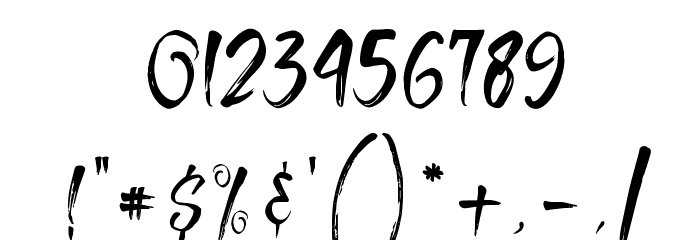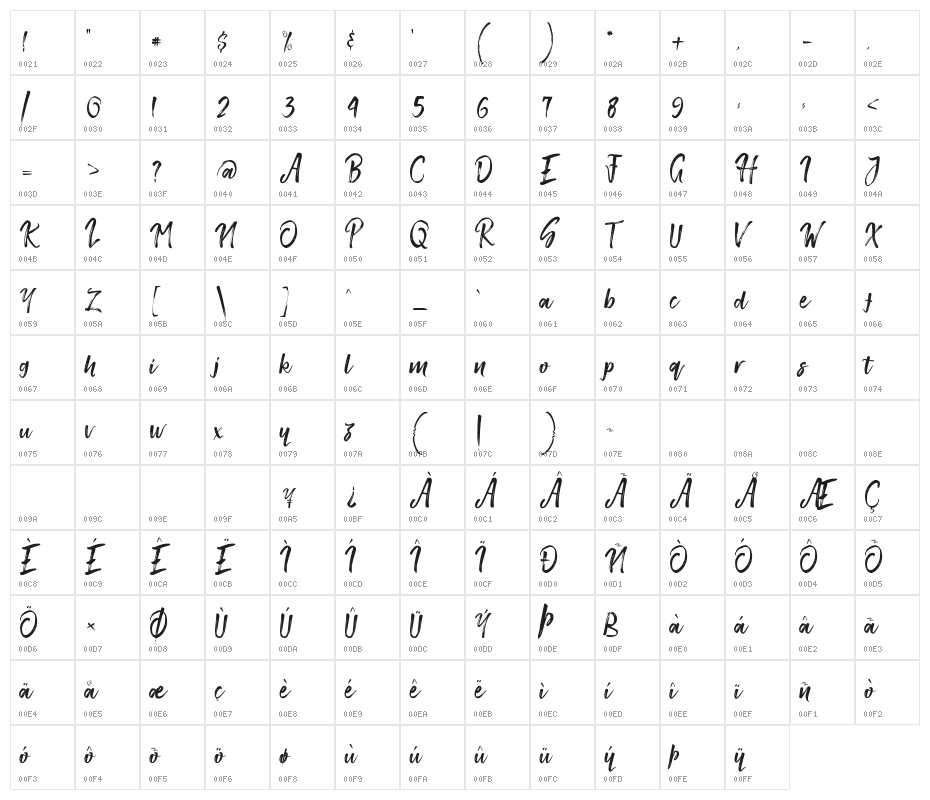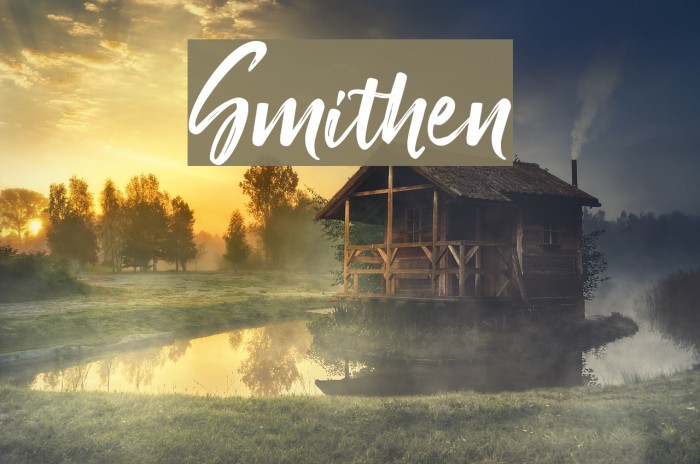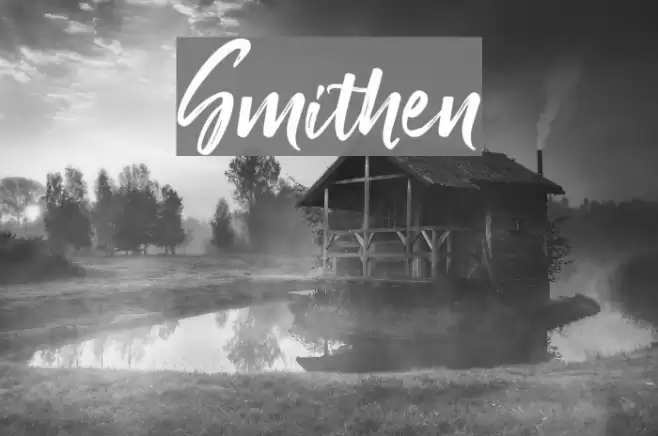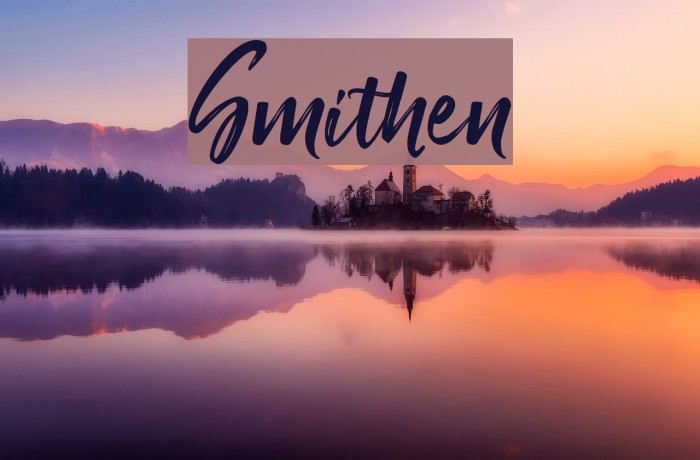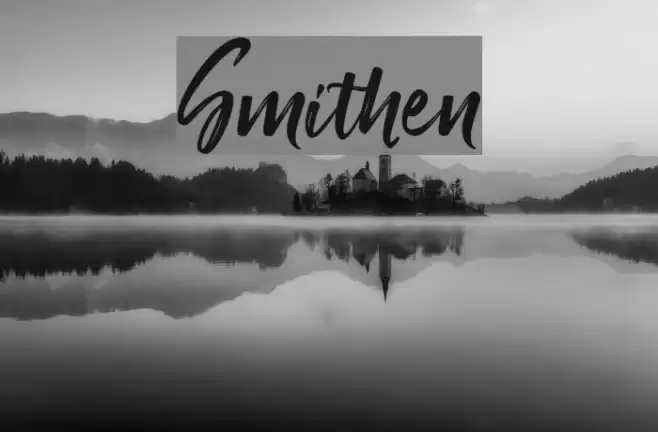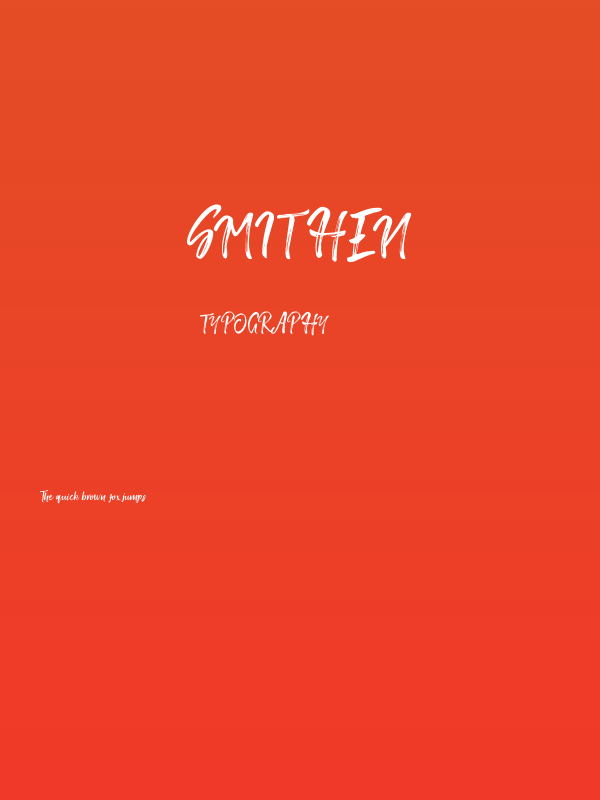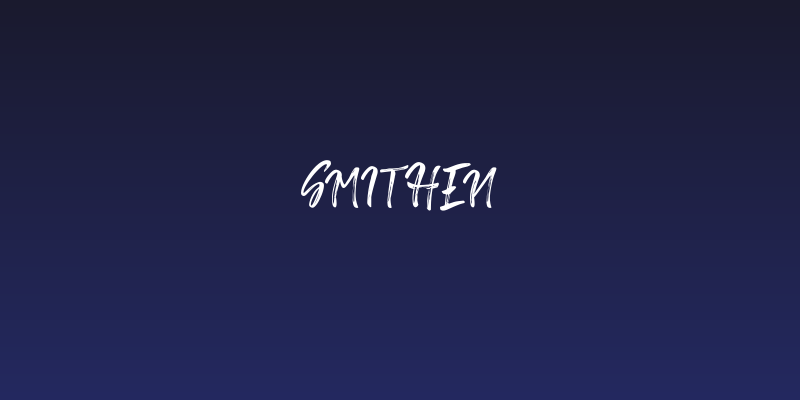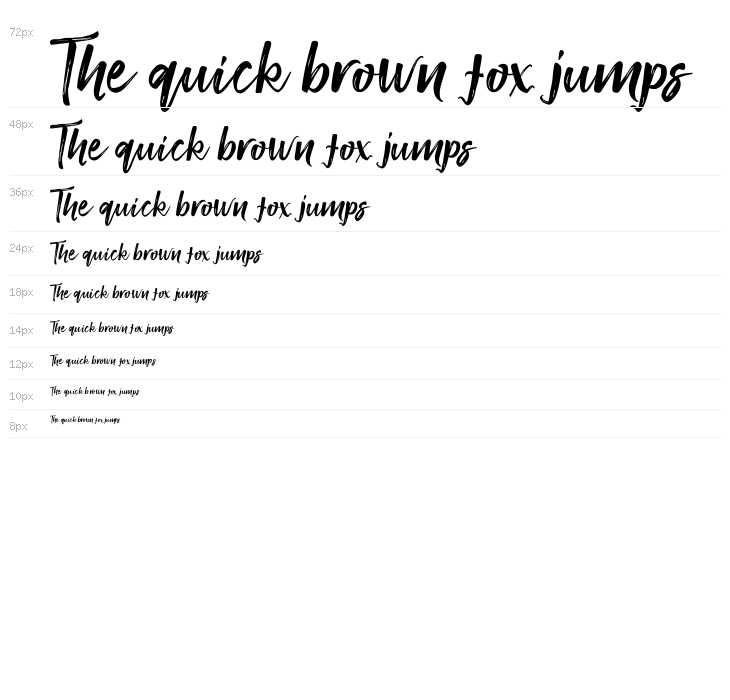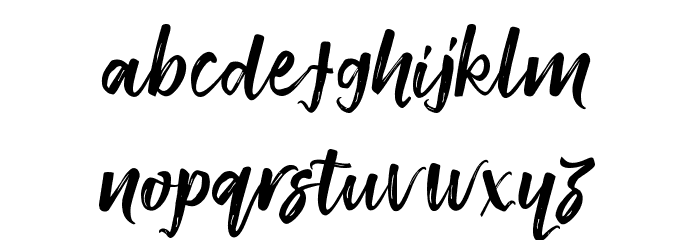
Smithen Font
Smithen Description
This font exhibits a dynamic and expressive handwritten style, characterized by its fluid strokes and artistic flair. The uppercase letters are bold and slightly elongated, giving a sense of movement and energy. The lowercase letters maintain a consistent flow, with some letters featuring unique loops and curves that add to the font's charm. The numbers are equally expressive, maintaining the same artistic style as the letters. Special characters are creatively designed, adding a playful touch to the overall appearance. This font's brush-like texture and irregularities in stroke width contribute to its lively and informal aesthetic.